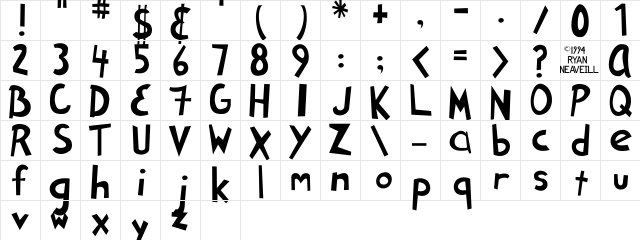
Ryan's Rotten Writing Regular
Design Context for Ryan's Rotten Writing Typeface
Ryan's Rotten Writing is a composed and adaptable typeface that performs quietly and consistently across a wide range of design contexts.